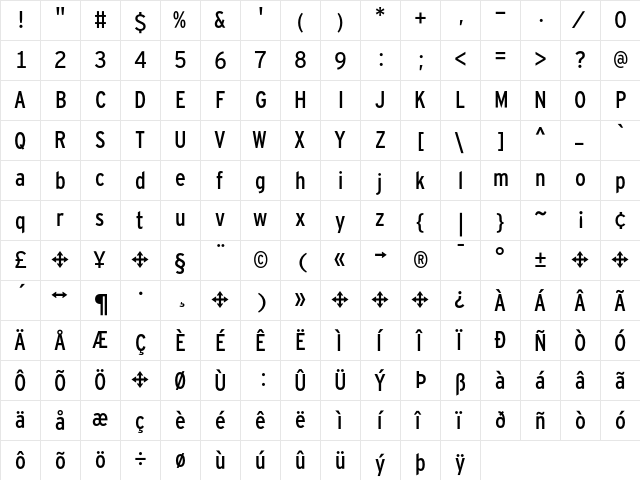
Interstate Cond Mono Regular Font Preview
Interstate Cond Mono Regular
Design Context for Interstate Cond Mono Typeface
Interstate Cond Mono uses fixed-width spacing throughout, giving it the structured, systematic character associated with coding environments and technical documentation.